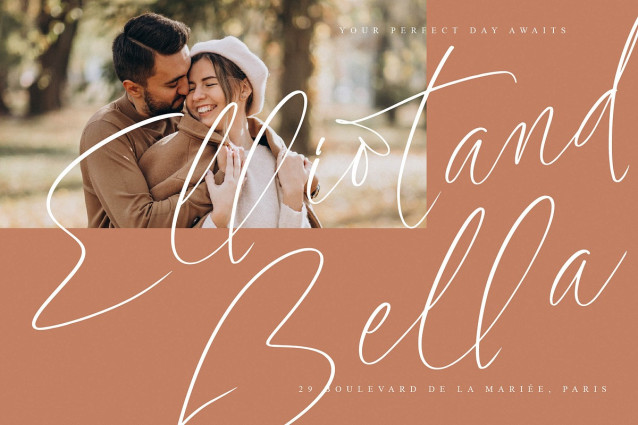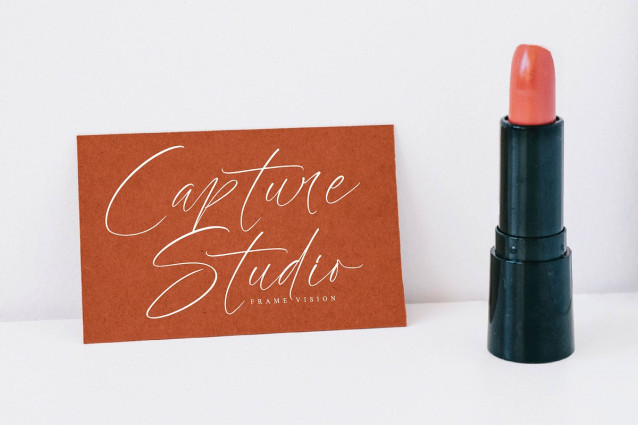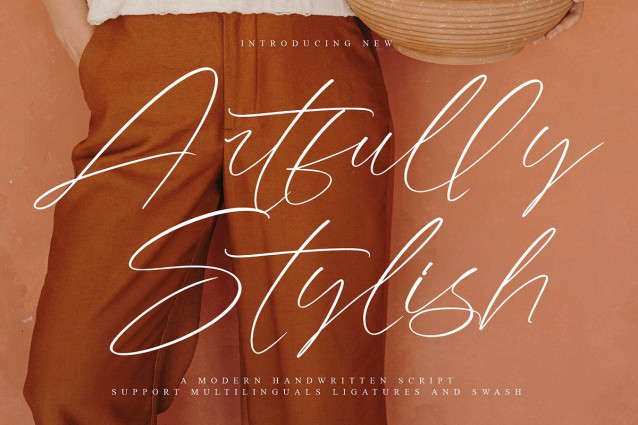
Artfully Stylish Font
Artfully Stylish Font – A Modern Handwritten Script, from Operatype.Co, perfect for any project like: logos, branding projects, homewares designs, product packaging, mugs, quotes, posters, shopping bags, t-shirts, covers books, business cards, invitation cards, greeting cards, labels, photography, watermarks, special events and all your other luxury projects that require a premium taste.